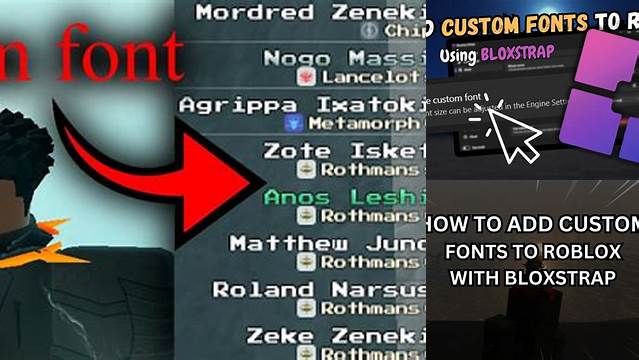
Roblox Custom Fonts: The Ultimate Guide To Unique Typography
Are you looking to enhance your Roblox game's aesthetics and make it stand out from the crowd? One powerful way to do this is by using custom fonts. In this comprehensive guide, we'll dive into the world of Roblox custom fonts, covering everything from why you should use them to how to implement them effectively. Get ready to transform your game's visual appeal and captivate your players with unique typography.
Why Use Custom Fonts in Roblox?
Custom fonts can dramatically improve the overall look and feel of your Roblox game. Imagine stepping into a game where the text is not just readable, but also visually appealing and thematic. That's the power of custom fonts! They allow you to create a more immersive and engaging experience for your players.
Enhancing Visual Appeal
Let's face it, the default fonts in Roblox are functional, but they lack personality. By using custom fonts, you can inject character and style into your game's UI, dialogue, and environmental text. This is especially crucial for games that aim for a specific aesthetic, such as a futuristic sci-fi world or a whimsical fantasy realm. The right font can be the difference between a generic-looking game and a visually stunning masterpiece. For instance, consider a horror game using a spooky, handwritten font for its in-game notes, instantly adding to the atmosphere. Or a children's game utilizing a playful, rounded font for a friendly and inviting feel. Visual appeal is not just about graphics; it's also about how text is presented.
Creating a Unique Brand Identity
In the crowded Roblox marketplace, standing out is essential. Custom fonts can play a significant role in establishing your game's unique brand identity. Think of iconic brands like Coca-Cola or Disney – their logos and branding heavily rely on distinctive typography. Similarly, your game can benefit from a carefully chosen font that reflects its theme, style, and target audience. This consistency in visual presentation helps players recognize and remember your game, fostering a sense of loyalty and recognition. By using a unique font, you're not just adding text; you're crafting a visual signature for your game.
Improving User Experience
User experience (UX) is paramount in game design, and typography plays a crucial role. A well-chosen custom font can improve readability, making it easier for players to navigate menus, understand instructions, and engage with the game's narrative. Conversely, a poorly chosen font can lead to eye strain, confusion, and frustration. Consider factors like font size, letter spacing, and contrast when selecting a font. A clear, legible font ensures that players can focus on enjoying the game rather than struggling to decipher the text. Moreover, using different fonts for different elements (e.g., a bold font for headings, a clean font for body text) can create a visual hierarchy, guiding players through the interface intuitively. Improving UX through thoughtful typography can significantly enhance player satisfaction.
Finding and Preparing Custom Fonts
Now that you understand the importance of custom fonts, let's explore how to find and prepare them for use in Roblox. The internet is a vast resource for fonts, but it's crucial to ensure that you're using fonts legally and that they are optimized for the Roblox platform.
Where to Find Fonts
Font Licensing
Before using any font in your Roblox game, it's essential to understand its license. Many free fonts come with restrictions on commercial use, modification, or redistribution. Always check the license agreement to ensure that you're complying with the terms. If you're unsure about the license, it's best to err on the side of caution and choose a different font or purchase a commercial license. Using a font without the proper license can lead to legal issues, so always do your due diligence.
Converting Fonts to .TTF or .OTF
Roblox primarily supports .TTF (TrueType Font) and .OTF (OpenType Font) formats. Most fonts you download will already be in one of these formats. However, if you encounter a font in a different format (e.g., .WOFF, .EOT), you'll need to convert it. There are several online font converters that can help you with this process. Simply upload the font file and select .TTF or .OTF as the output format. Converting fonts is a straightforward process, but it's a necessary step to ensure compatibility with Roblox.
Implementing Custom Fonts in Roblox